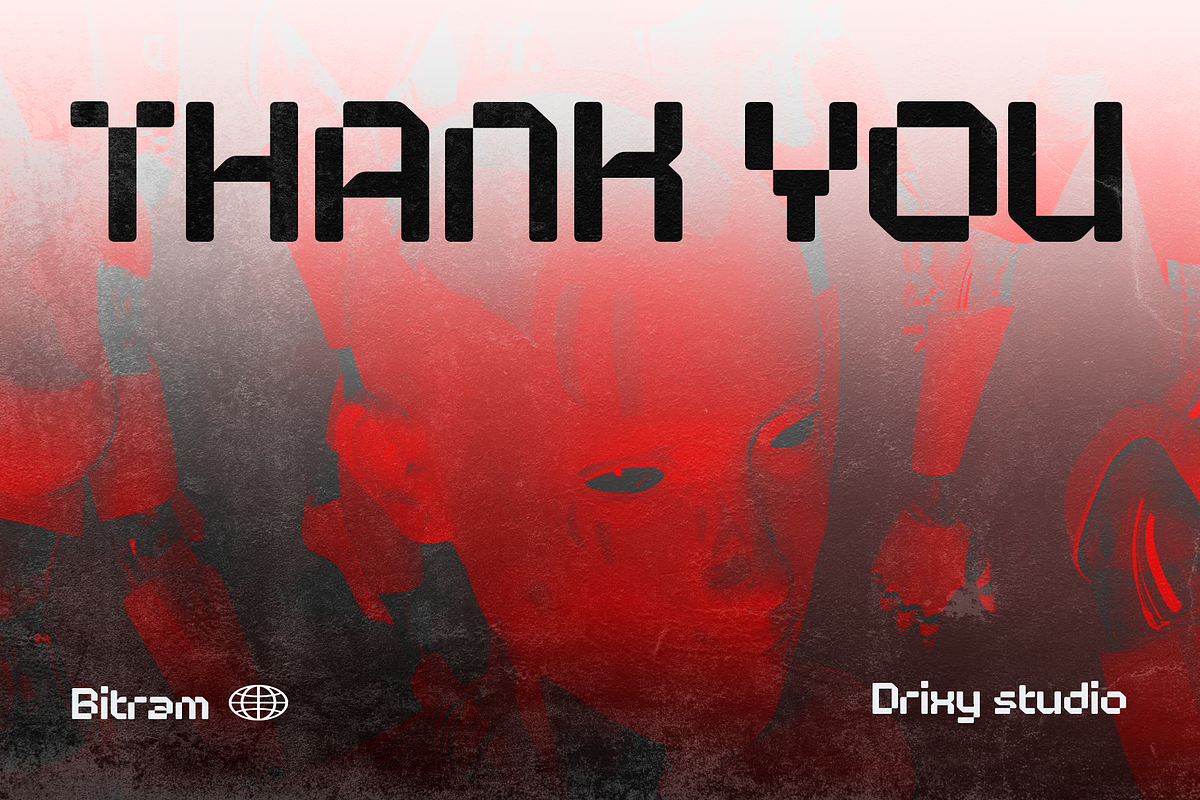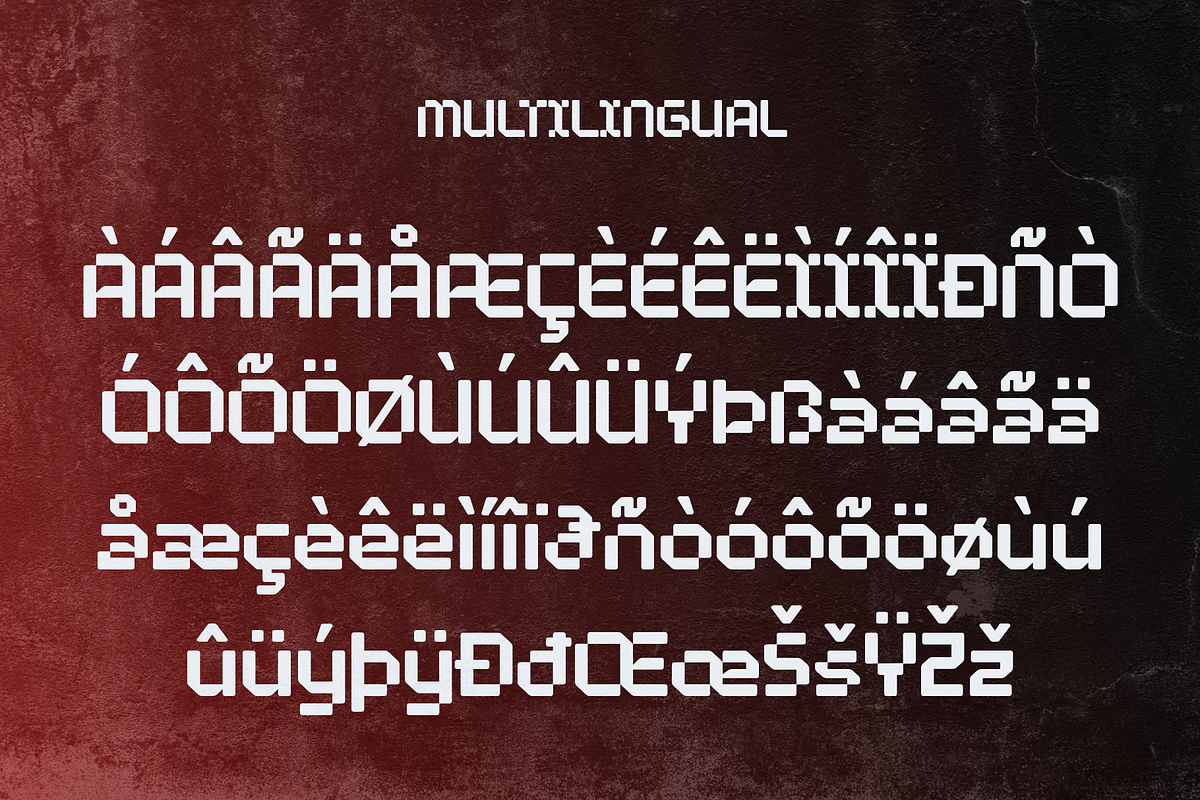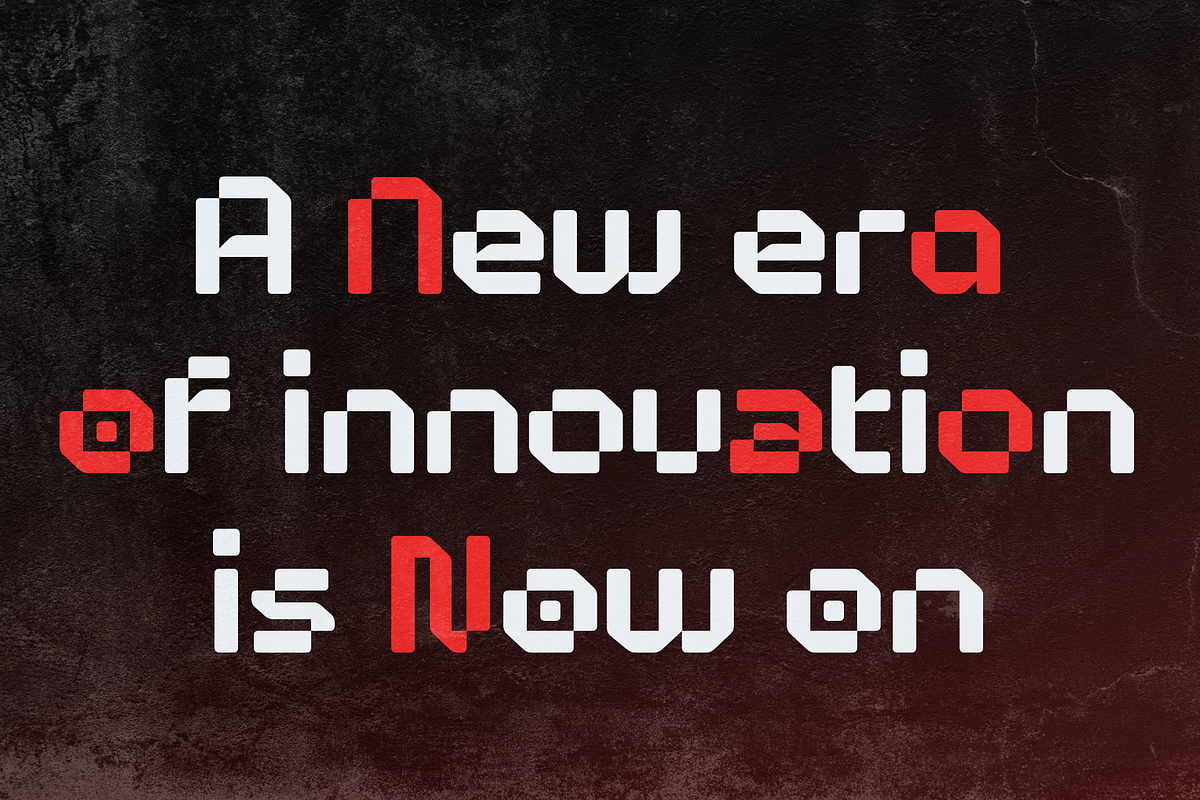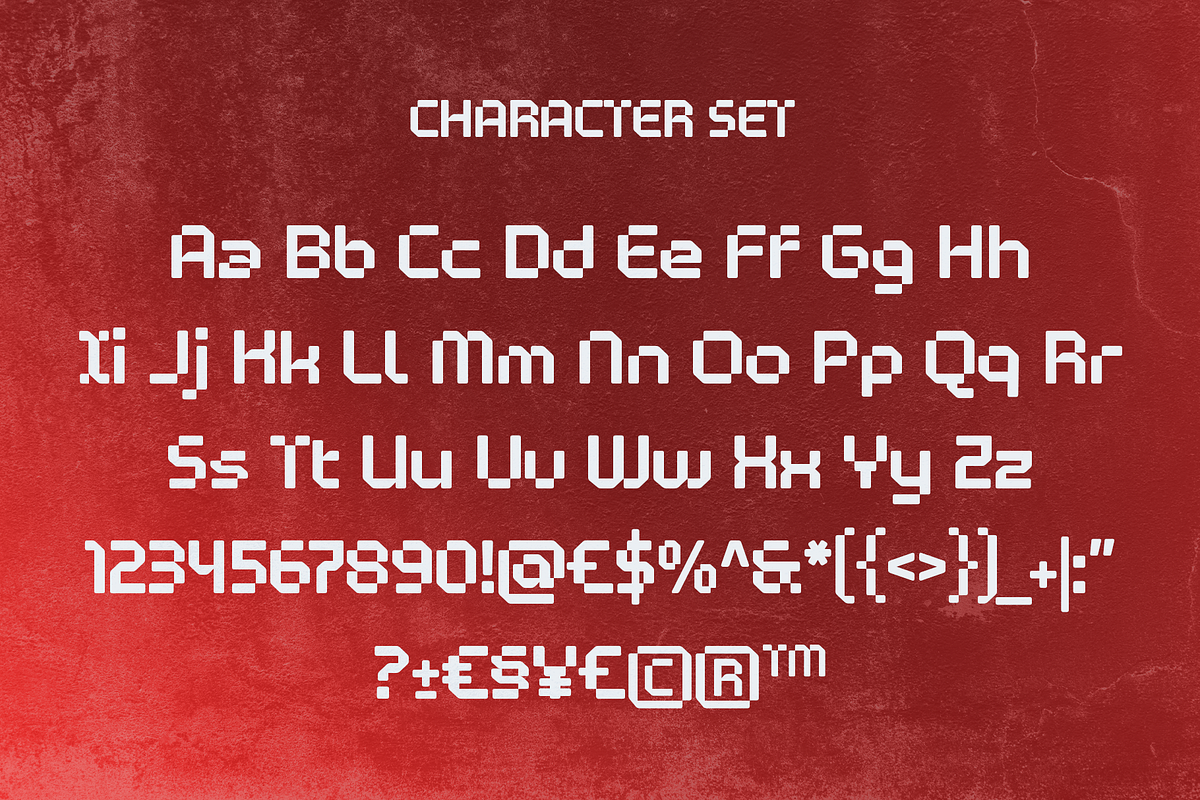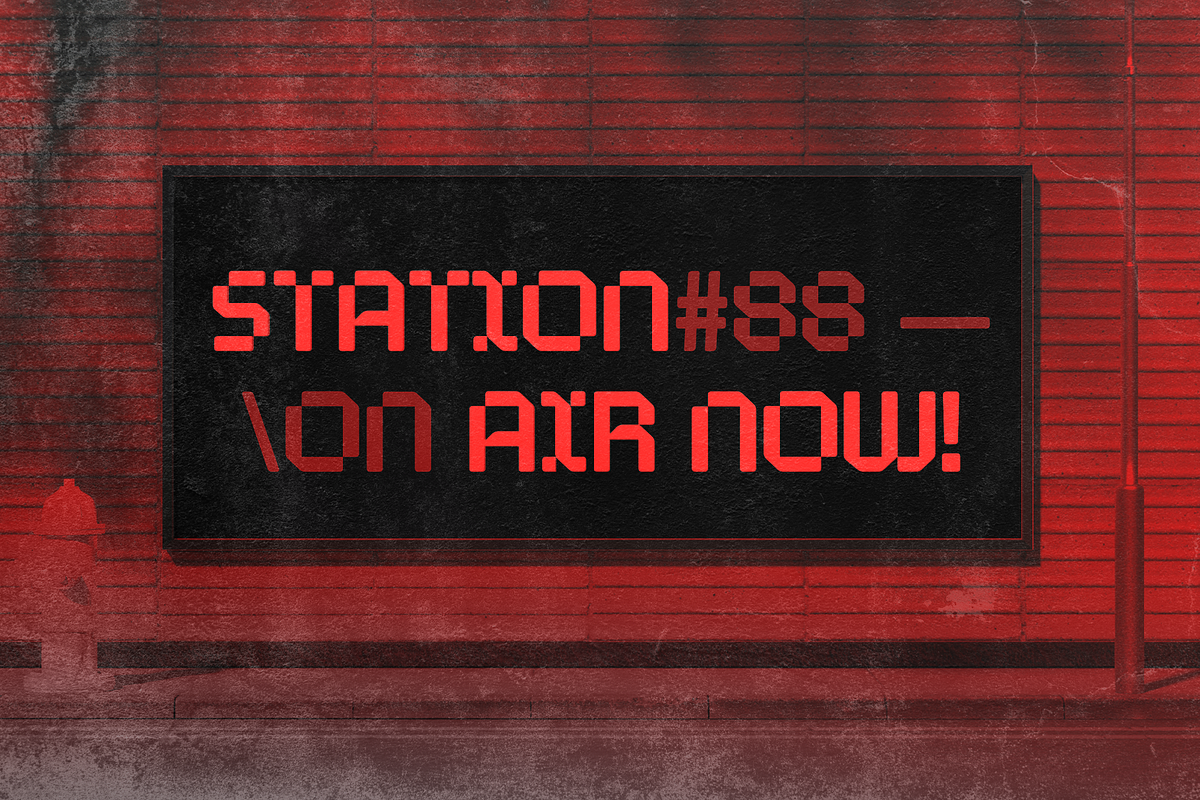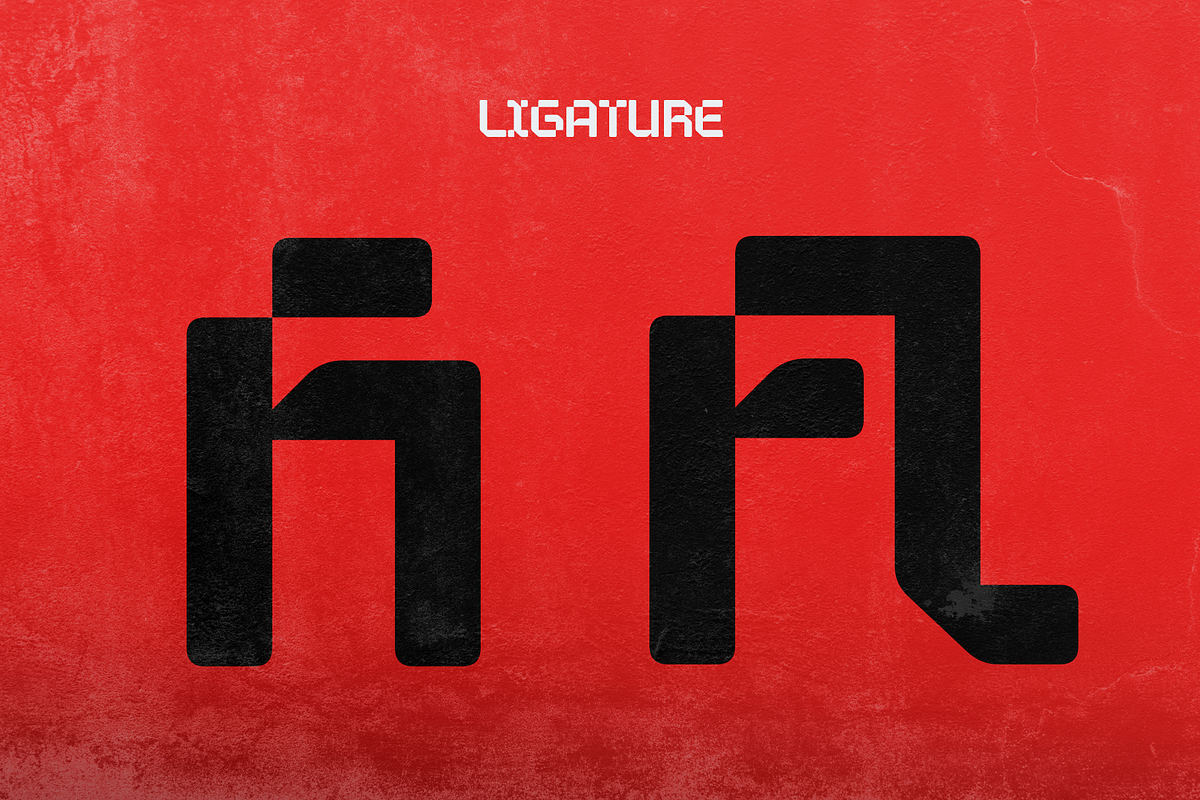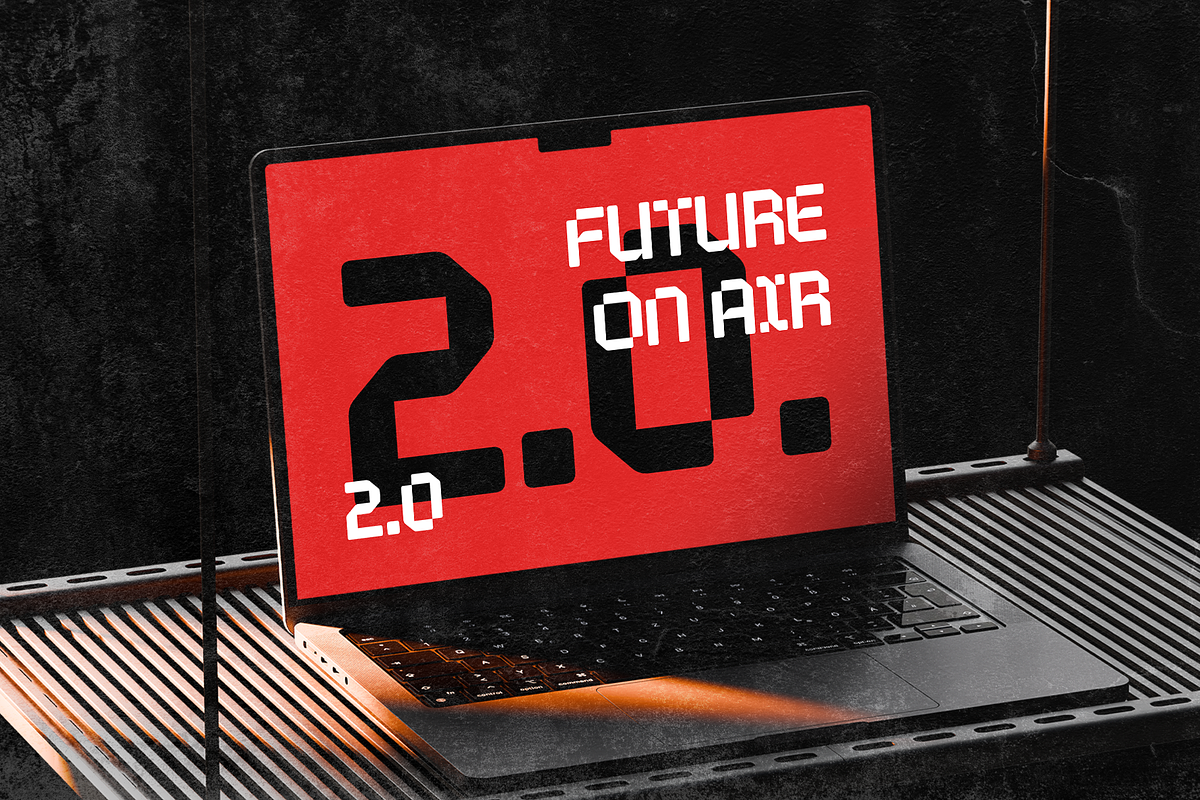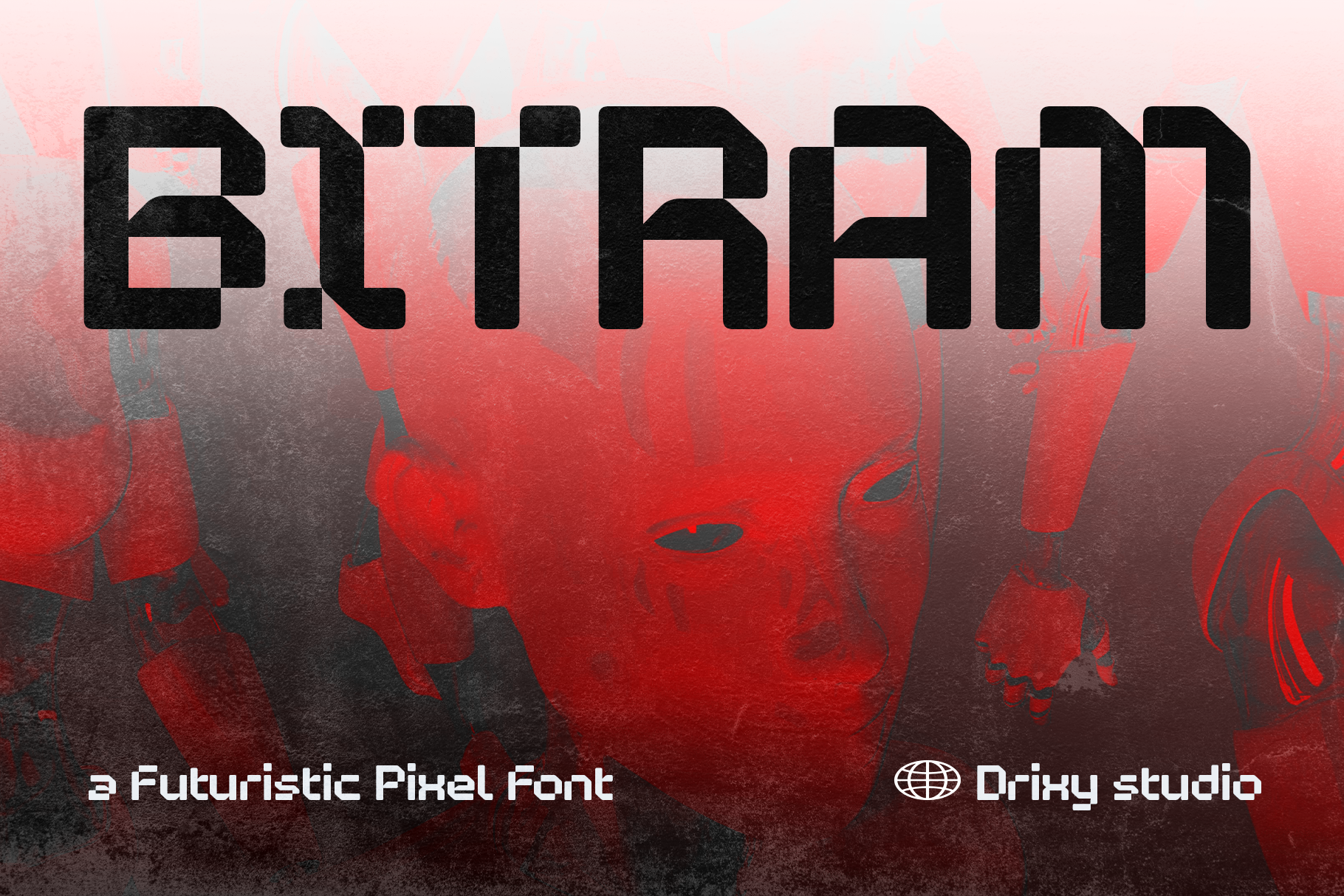
Bitram – Futuristic Pixel Font
**Bitram – Futuristic Pixel Font**
Bitram-A is a futuristic pixel font featuring an abstract pixel design approach, combining sharp geometric structures with experimental digital aesthetics. Inspired by retro gaming visuals, cyber interfaces, and futuristic technology, this font transforms traditional pixel typography into a more modern and abstract style. Its bold, modular forms make it ideal for posters, gaming titles, sci-fi branding, esports projects, album covers, UI concepts, and creative display designs.
Designed with an abstract pixel character, Bitram-A creates a strong technological atmosphere while delivering a distinctive futuristic identity. Whether for digital branding or experimental visual projects, this font adds a modern cyber-inspired edge with a unique abstract pixel appeal.
Bitram – Futuristic Pixel Font features:
Punctuation & Numbers